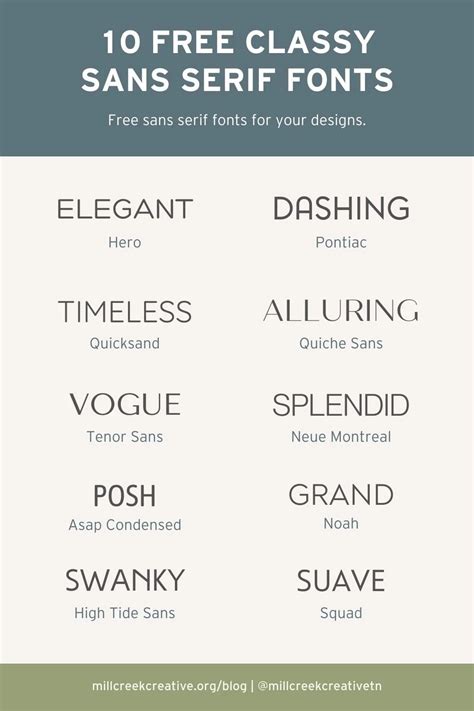
Sans Seriff Fonts – A Look At The Latest Trends For 2023
Sans seriff fonts have been around for centuries, and with the ever-changing landscape of the digital world, they remain popular today. With a huge selection of available fonts, it can be difficult to know which ones are the ‘right’ ones to use. In this article, we’ll take a look at the latest trends in sans seriff fonts for 2023, and help you decide which ones to use in your work.
What are Sans Seriff Fonts?
Sans seriff fonts are fonts without the small decorative lines that are known as serifs. This makes them easier to read on screens, as the serifs can sometimes be blurred on smaller screens. Sans seriff fonts are generally used for body text, as they are easier on the eyes and give a more modern aesthetic to the design.
What Are the Latest Trends for Sans Seriff Fonts?
A popular trend in sans seriff fonts is the use of large letterforms. These font styles have large letters that are easier to read, as well as a more modern look. This trend is especially popular in web design, where larger letters are easier to read on smaller screens. Another trend is the use of bold fonts, which are designed to stand out and draw attention. Bold fonts have become popular in both print and digital design, and they are a great way to make your design stand out.
What Are the Best Sans Seriff Fonts to Use?
The best sans seriff fonts to use depend on the design you are creating. For body text, a font like Arial or Helvetica is a great choice, as they are both easy to read and have a modern look. For headlines and titles, a bold font like Impact or Rockwell is a great choice. These fonts are designed to draw attention and make your design stand out.
Sans seriff fonts are a timeless design staple, and they continue to be popular in the digital world. With the latest trends for 2023, you can make sure your design is up-to-date and eye-catching. From large letterforms to bold fonts, there is a wide variety of sans seriff fonts to choose from. With the right font selection, you can create a design that stands out from the rest.